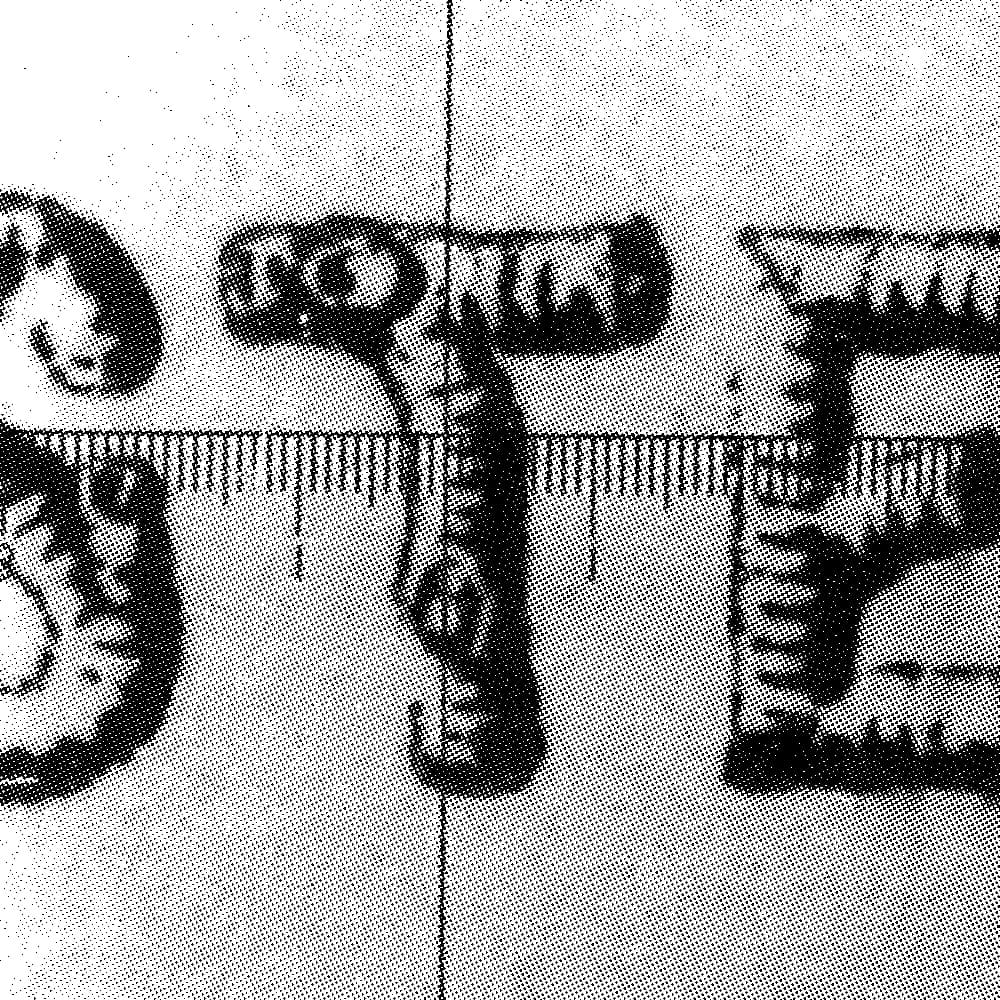
Collecting Branches
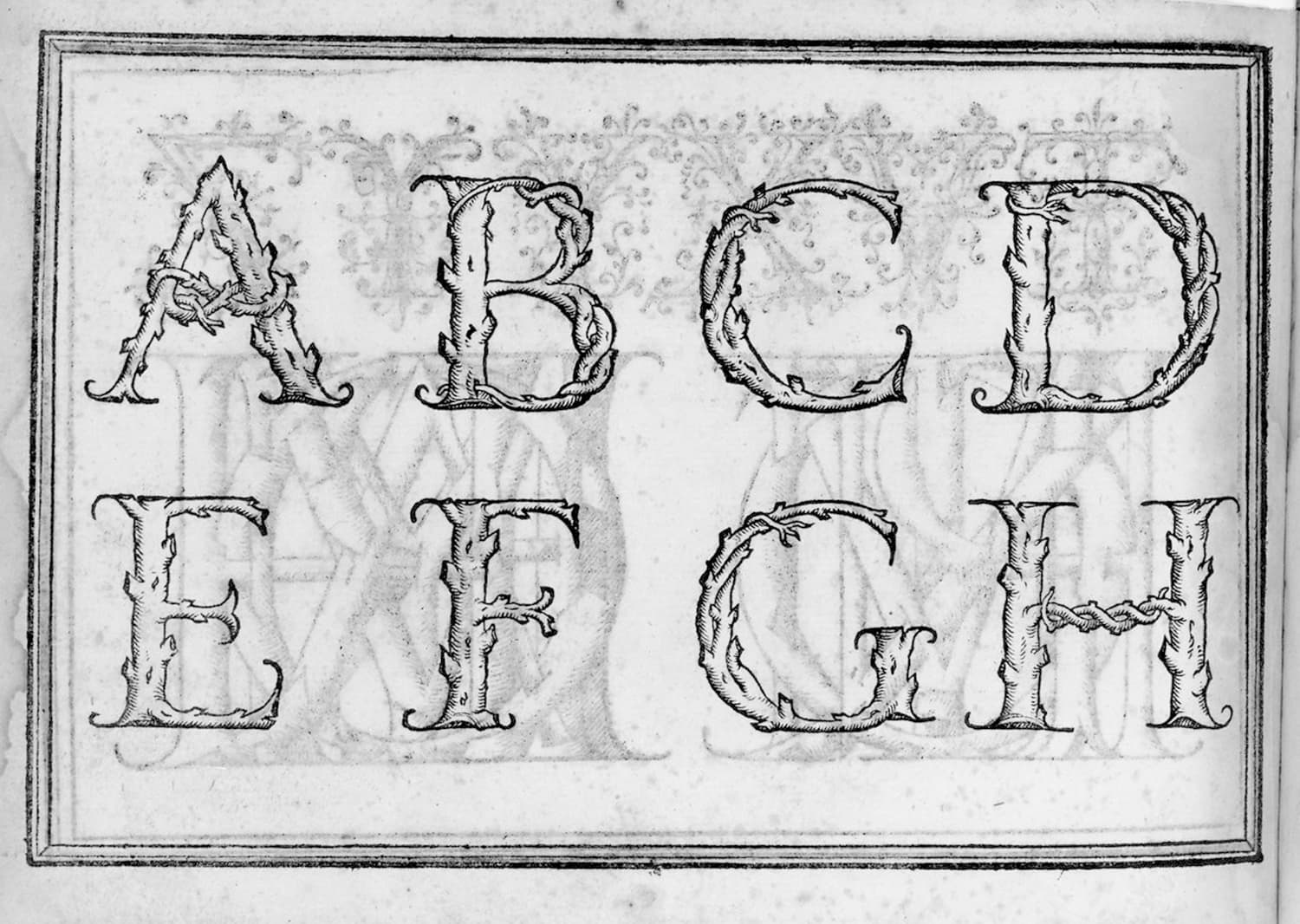
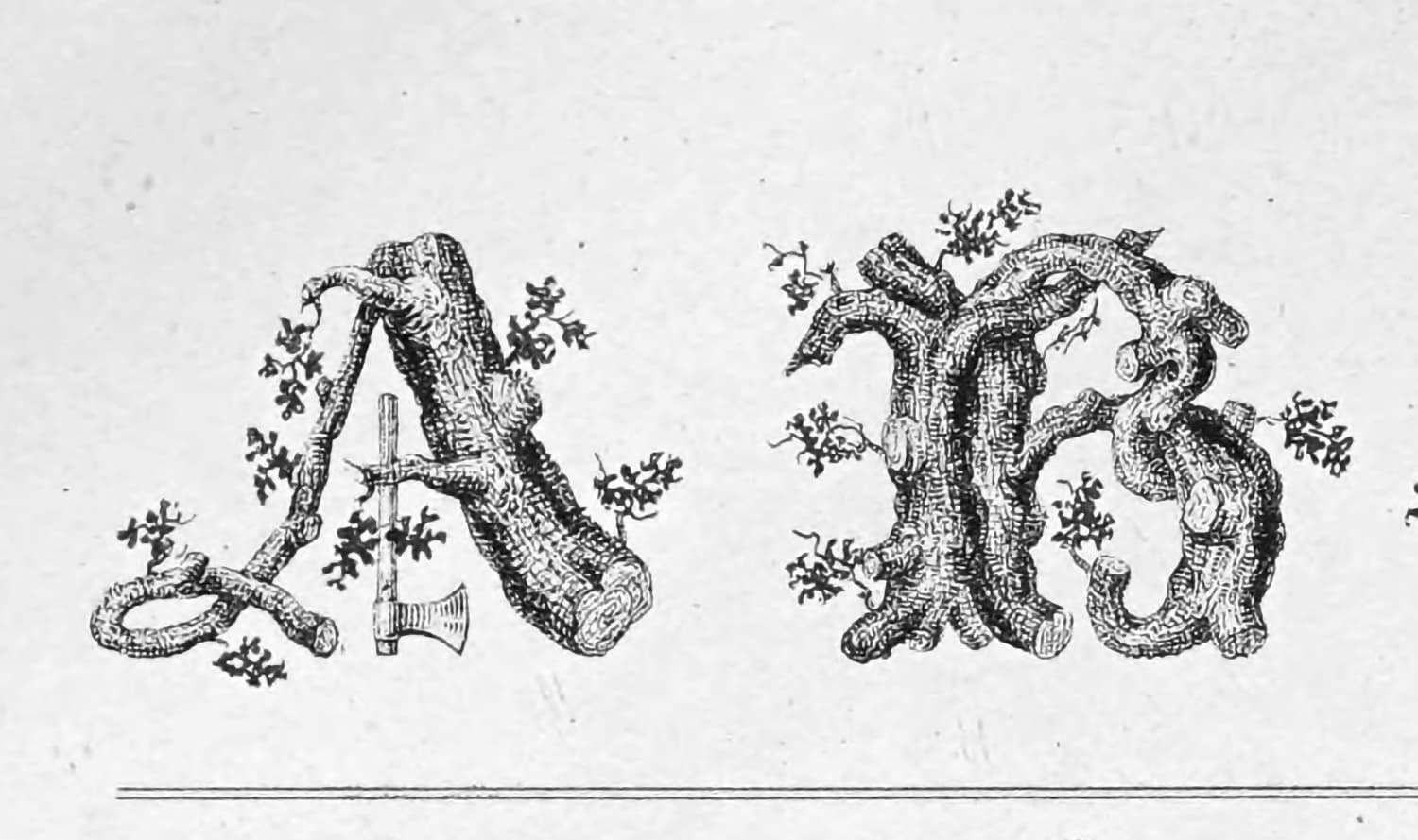
Visual research is a process of wandering among trees and books. The series of images above is a selection from my ongoing observation of trees in their many shapes and forms, with my various ways of looking. More specifically, these are steps in my research on the tree trunk letter and in the design process of the connected typeface “Takjes”.